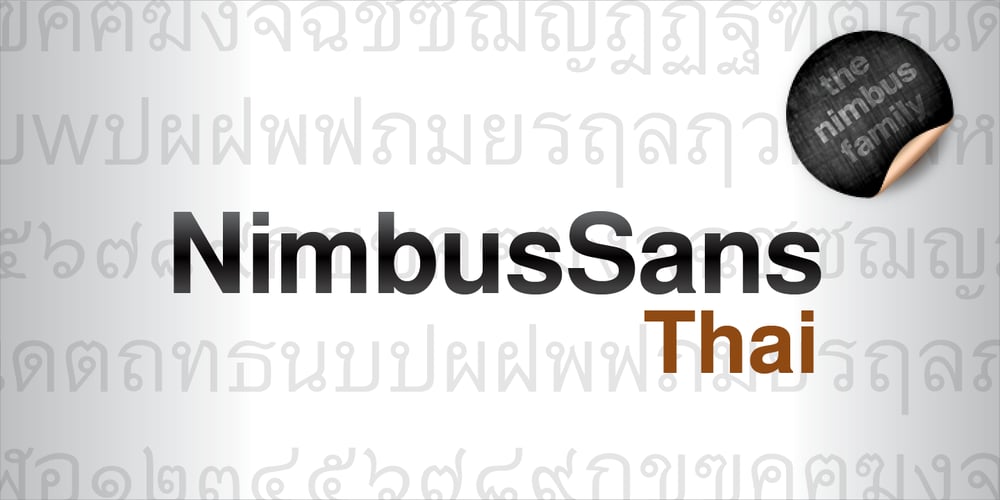
Nimbus Sans Thai
Nimbus Sans Thai font
Nimbus Sans Thai Font Family was designed by Max Miedinger and published by URW Type Foundry. Nimbus Sans Thai contains 7 styles and family package options. The Nimbus Sans Thai has been designed contemporarily and fittingly to the Latin Nimbus Sans family. It includes four upright and three cursive styles and the necessary OTF language features. Nimbus Sans Thai also covers the full Latin character range. Both scripts are perfectly combinable. Nimbus Sans is one of the best supported and most favored URW fonts ever. It is available as a Global Font in 4 weights and contains up to 65.000 characters per font.